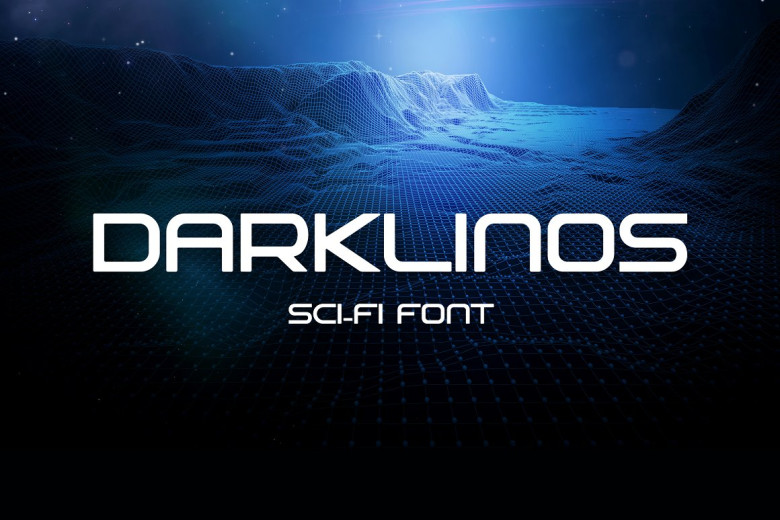
Darklinos Font
Darklinos is a SCI-FI display font that exudes elegance, class, and modernity. Perfect for stationary designs such as signatures, logos wedding invitations and typography quotes as well as book or magazine covers, website headers, website designs clothing branding packaging design fashion, editorial branding or designs with both feminine and masculine characteristics can utilize Darklinos.
Darklinos Display Font